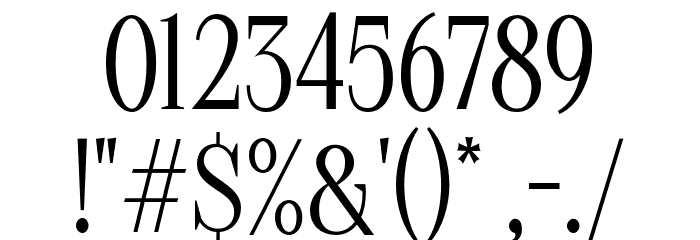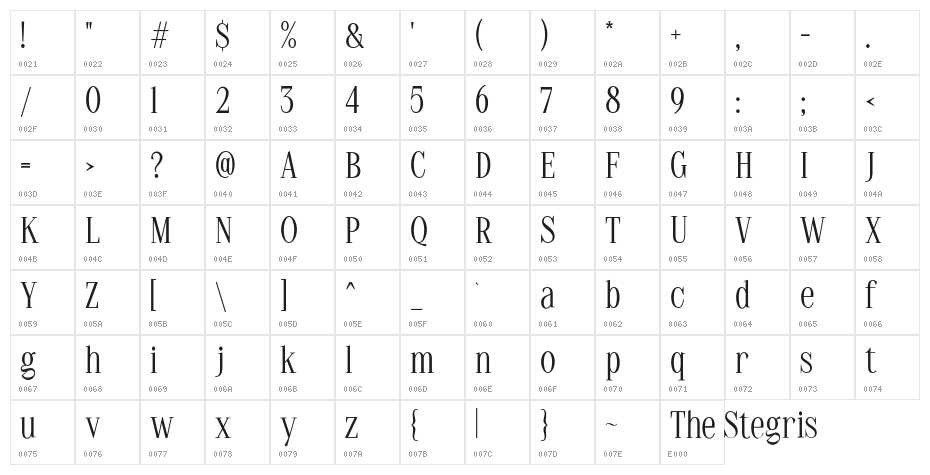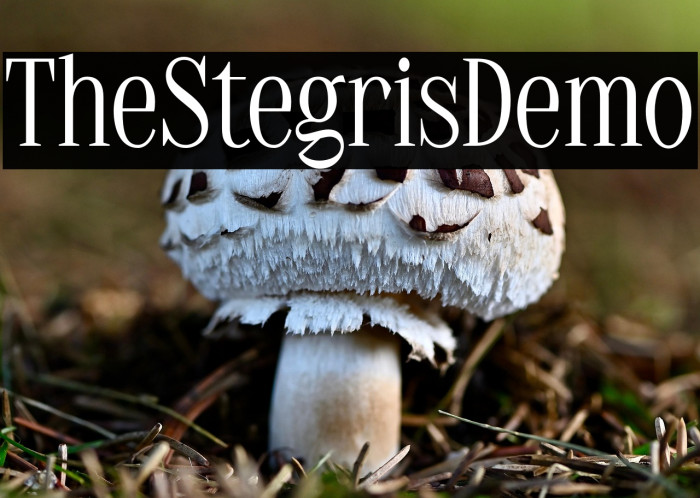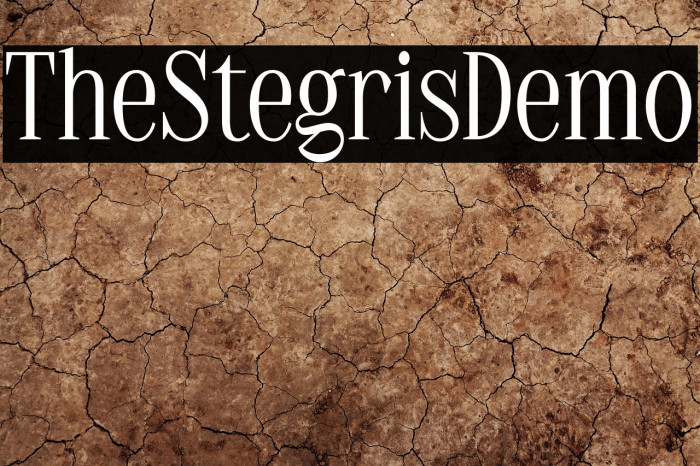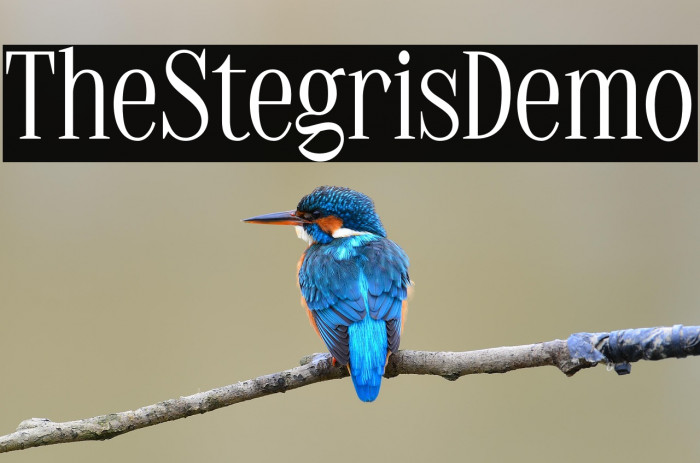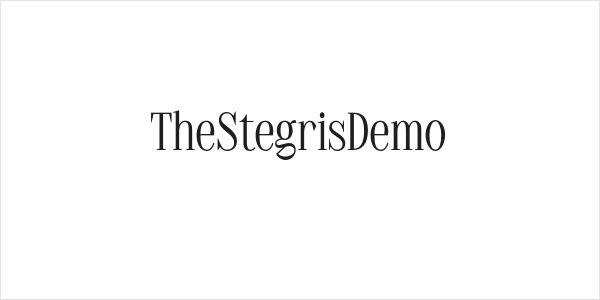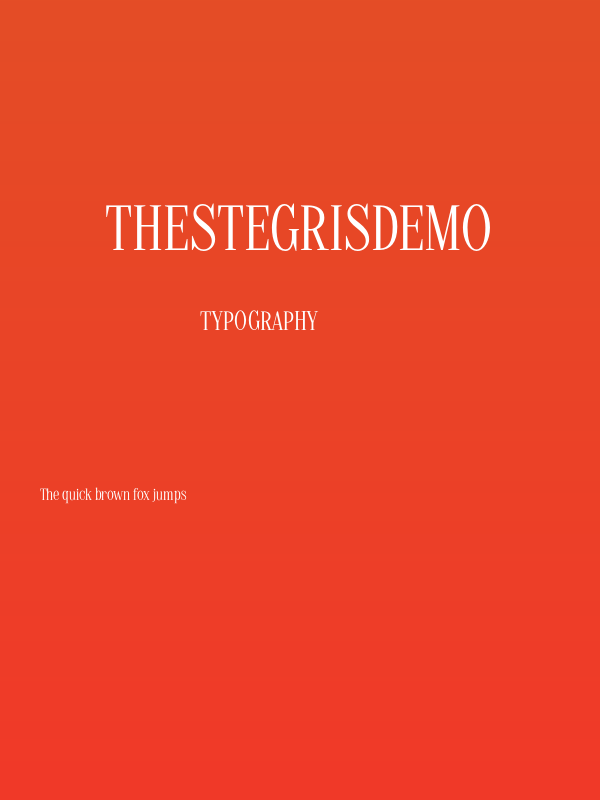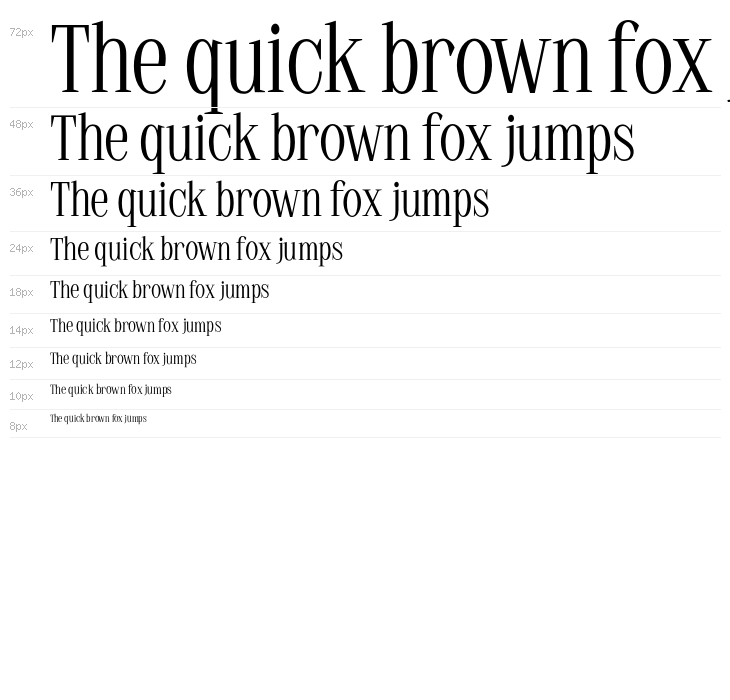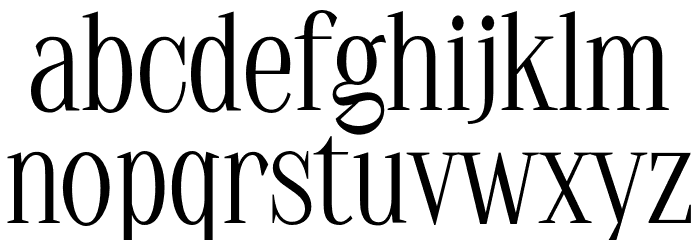
TheStegrisDemo Font
TheStegrisDemo Description
This font features a classic serif style with elegant, elongated strokes and a refined appearance. The uppercase letters are tall and commanding, while the lowercase letters maintain a balanced and harmonious look. The numerals are clear and distinct, making them easily readable. Special characters are designed with the same attention to detail, ensuring consistency throughout the font. The overall design exudes sophistication and timelessness, making it suitable for a variety of applications.
| Proposed Projects | Ideal for editorial design, book covers, formal invitations, and branding projects that require a touch of elegance and tradition. |